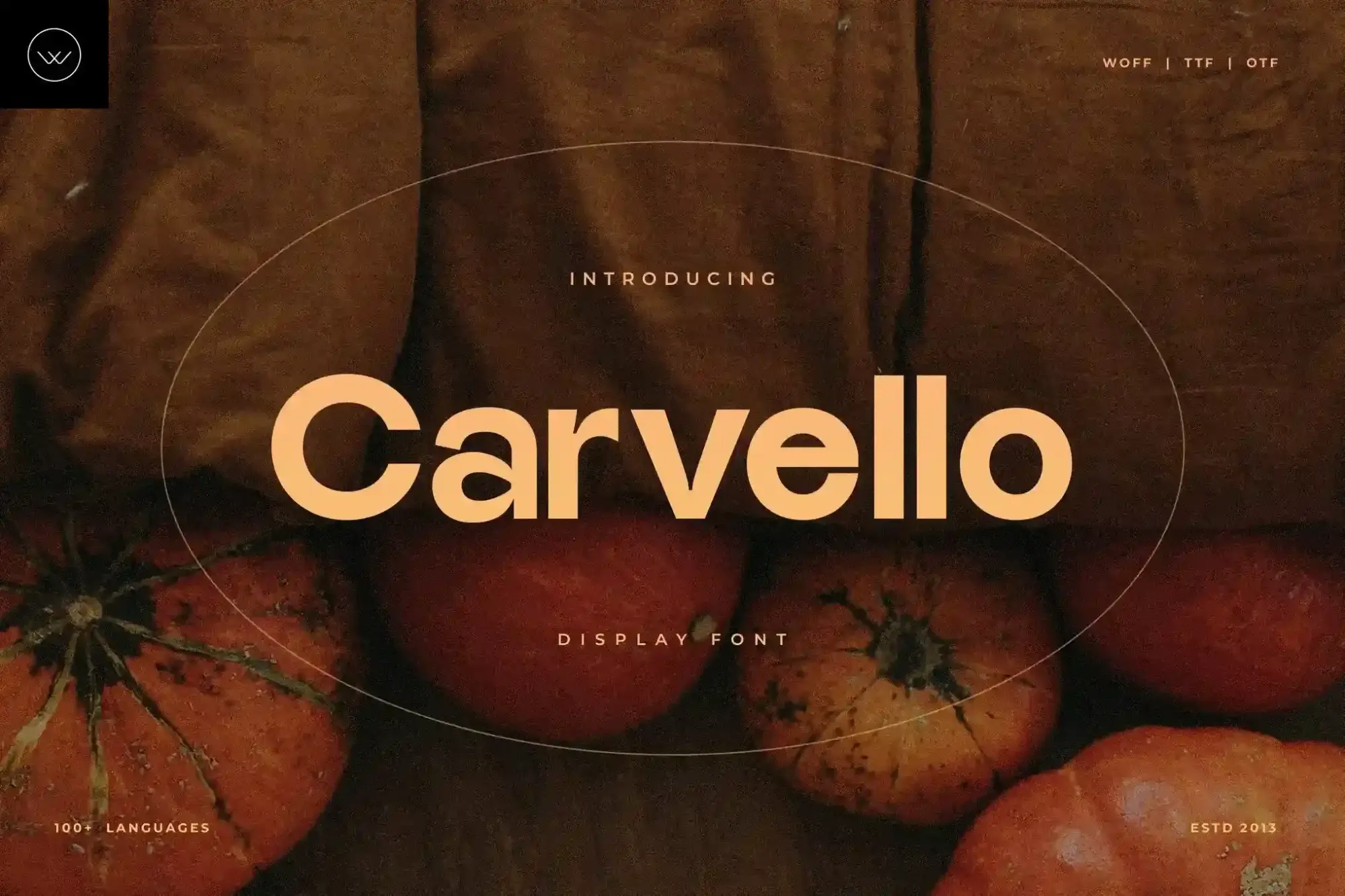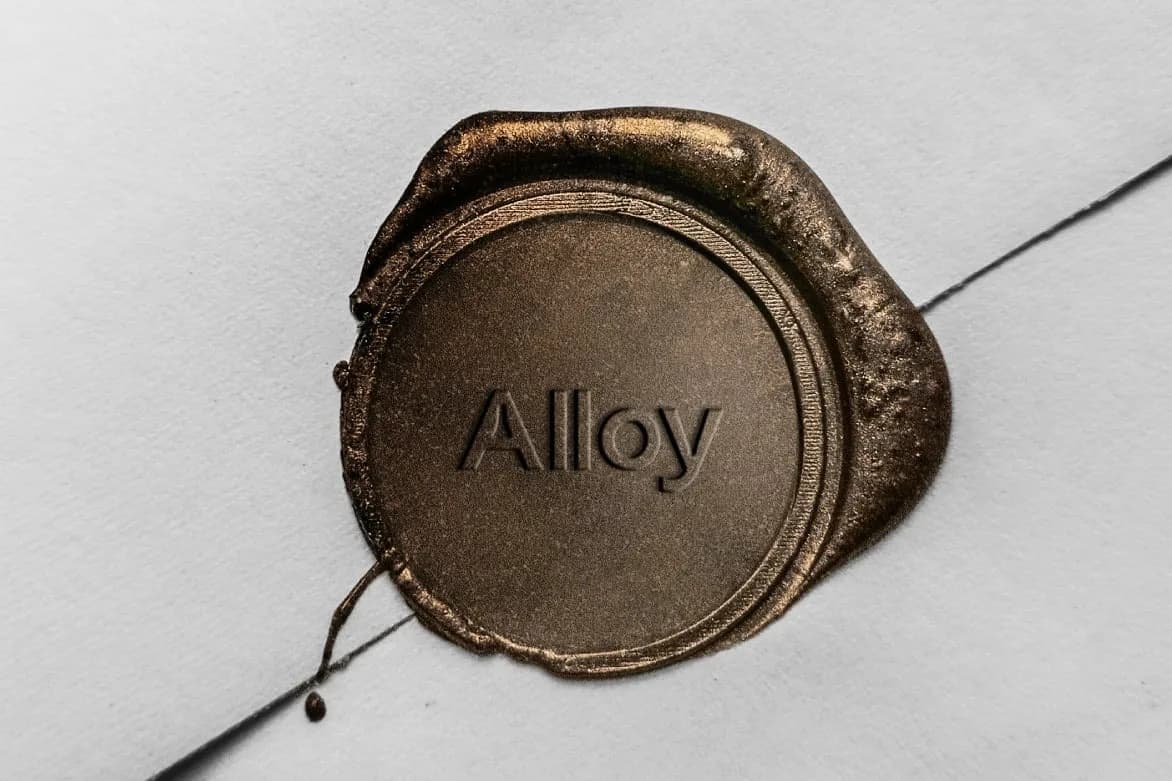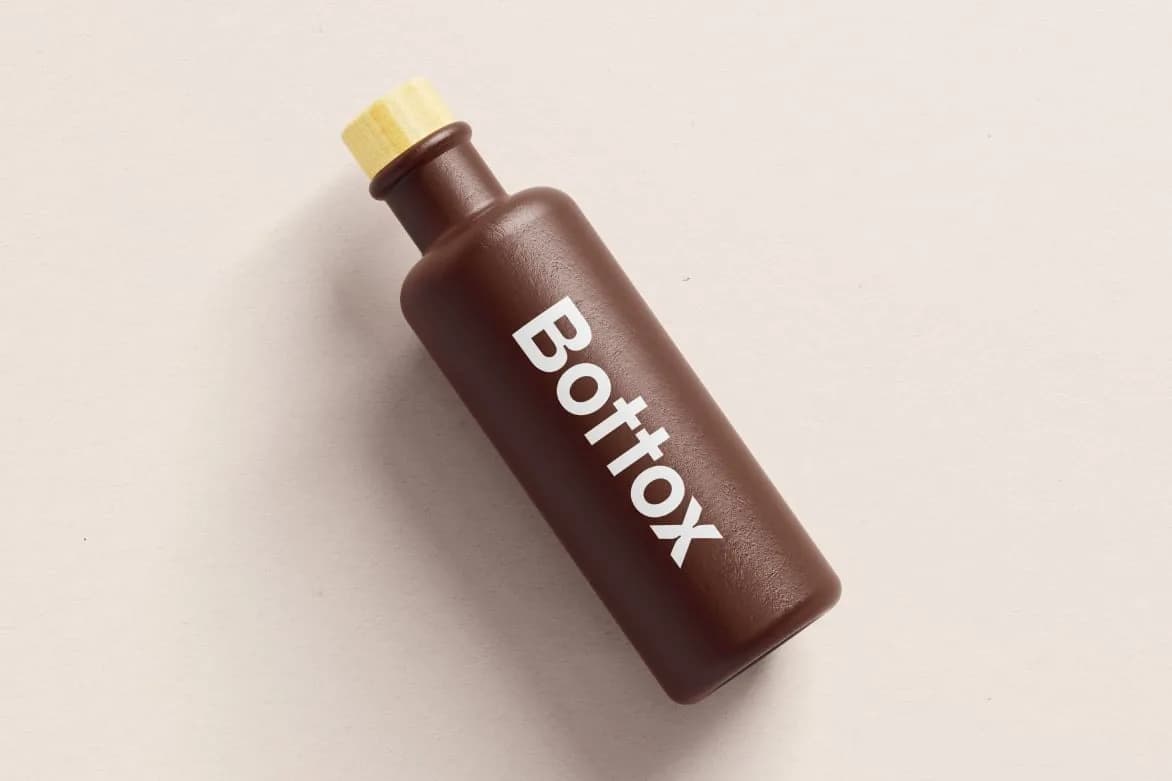
Carvello
Carvello, a sophisticated sans-serif font, merges contemporary aesthetics with timeless appeal, making it a perfect choice for display use. Its carefully crafted geometry features balanced spacing and thoughtfully designed kerning, which enhances readability while maintaining a stylish presence. The font's decorative details bring a unique flair, making it suitable for various creative applications.
Ideal for branding endeavors, Carvello shines in logo design and social media graphics, particularly for platforms like Instagram. Its autumn-inspired motifs resonate well with seasonal campaigns, making it an excellent fit for Halloween-themed projects or any promotional material where a touch of elegance is desired. This font's versatility extends to invitations and marketing sites, where it can effectively communicate warmth and style.
With support for Latin languages, Carvello ensures that your designs can reach a broad audience without compromising on quality. Whether you're crafting editorial layouts or eye-catching packaging, this font’s distinctive character provides the flexibility needed for any project. Elevate your design portfolio with Carvello, where contemporary design meets functional beauty.